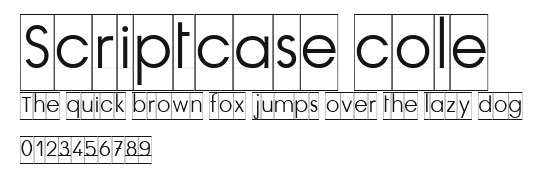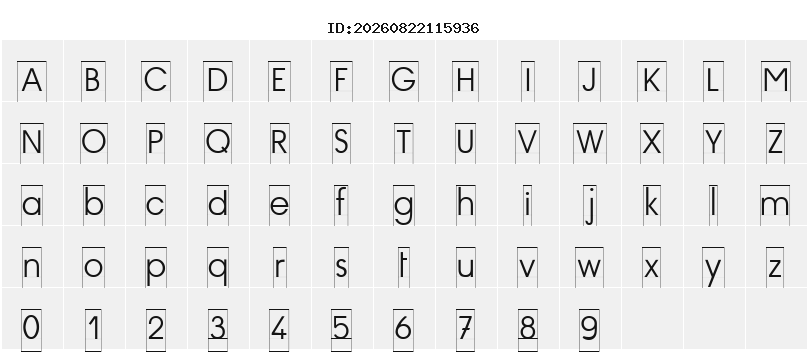
• Font Name: Scriptcase cole
• Full Font Name: Scriptcase cole
• Copyright: © 1998 Police d'origine : Avant Garde
About Scriptcase cole.ttf
Scriptcase cole.ttf is a modern, elegant sans-serif font designed for ultimate readability and visual harmony. Perfect for branding, headlines, web design, and print materials.